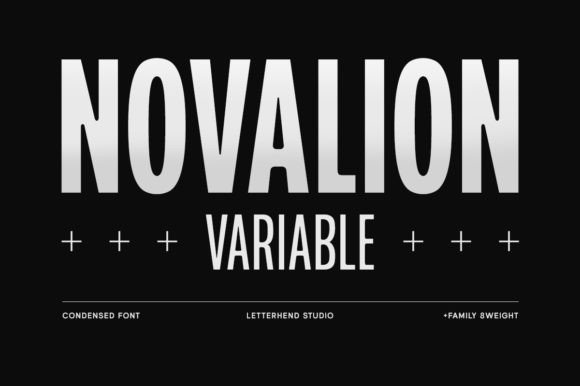
Novalion Font: The Ultimate Solution for Versatile Typography
In the world of typography, a font can make all the difference in the success of a design project. With the numerous options available, finding the perfect font that suits your project’s needs can be a daunting task. However, if you’re looking for a versatile and stylish font that can elevate your design, look no further than Novalion Font. In this article, we’ll explore the features and benefits of Novalion Font and why it’s an excellent choice for various design projects.
What is Novalion Font?
Novalion Font is a condensed variable sans serif font that offers a wide range of weights to choose from. This font is designed to provide flexibility and versatility, making it perfect for various design applications. With its clean and modern aesthetic, Novalion Font is ideal for designers who want to create stunning visual content that stands out.
Key Features of Novalion Font
- Condensed Variable Sans Serif Font: Novalion Font is a sans serif font with a condensed style, making it perfect for designs where space is limited.
- Multiple Weights: With a range of weights to choose from, designers can select the perfect weight to match their project’s tone and style.
- Clean and Modern Aesthetic: Novalion Font boasts a clean and modern design, making it perfect for contemporary design projects.
- Highly Versatile: This font is suitable for various design applications, including invitations, labels, logos, magazines, books, greeting/wedding cards, packaging, fashion, make-up, stationery, novels, labels, and advertising.
Use Cases for Novalion Font
Novalion Font is an incredibly versatile font that can be used in a wide range of design projects. Here are some examples of use cases where Novalion Font excels:
Invitations and Greeting Cards
Novalion Font is perfect for creating elegant and sophisticated invitations and greeting cards. Its condensed style and clean aesthetic make it ideal for wedding invitations, birthday cards, and other special occasions.
Logos and Branding
Novalion Font’s versatility makes it an excellent choice for logos and branding projects. With its range of weights, designers can create a unique and memorable logo that represents their brand’s identity.
Magazines and Books
Novalion Font is suitable for publications such as magazines and books. Its clean and modern aesthetic makes it perfect for headings, subheadings, and body text.
Packaging and Labels
Novalion Font’s condensed style makes it ideal for packaging and labels. Its legibility and readability ensure that your product’s information is clear and concise.
Fashion and Beauty
Novalion Font’s modern aesthetic makes it perfect for fashion and beauty brands. Its versatility allows designers to create stunning visual content that showcases their brand’s style and personality.
Benefits of Using Novalion Font
Novalion Font offers several benefits that make it an excellent choice for designers:
Flexibility
Novalion Font’s range of weights and condensed style provide flexibility, allowing designers to adapt the font to various design applications.
Legibility and Readability
Novalion Font’s clean and modern aesthetic ensures excellent legibility and readability, making it perfect for body text and headings.
Uniqueness
Novalion Font’s unique design sets it apart from other fonts, making it an excellent choice for designers who want to create distinctive visual content.
Time-Saving
Novalion Font’s versatility saves designers time and effort, as they can use the same font for various design projects.
| Font Name | Novalion Font |
Novalion Font is an exceptional font that offers versatility, flexibility, and style. Its range of weights, condensed style, and clean aesthetic make it perfect for various design applications. Whether you’re designing invitations, logos, magazines, or packaging, Novalion Font is an excellent choice. With its numerous benefits, including flexibility, legibility, uniqueness, and time-saving, Novalion Font is a valuable addition to any designer’s toolkit.